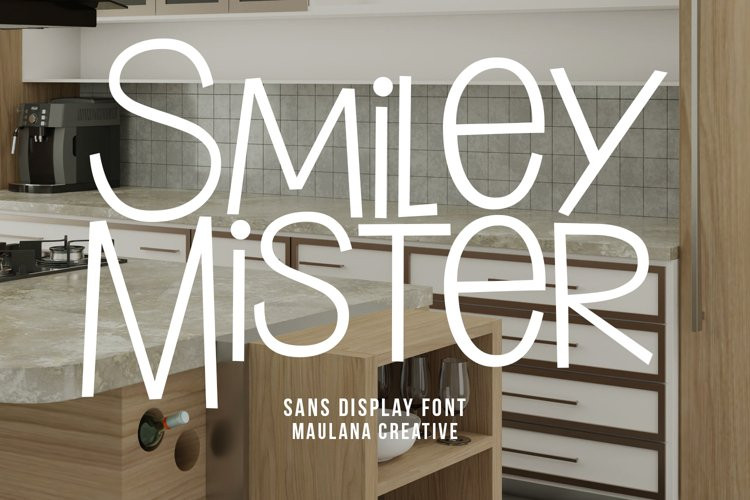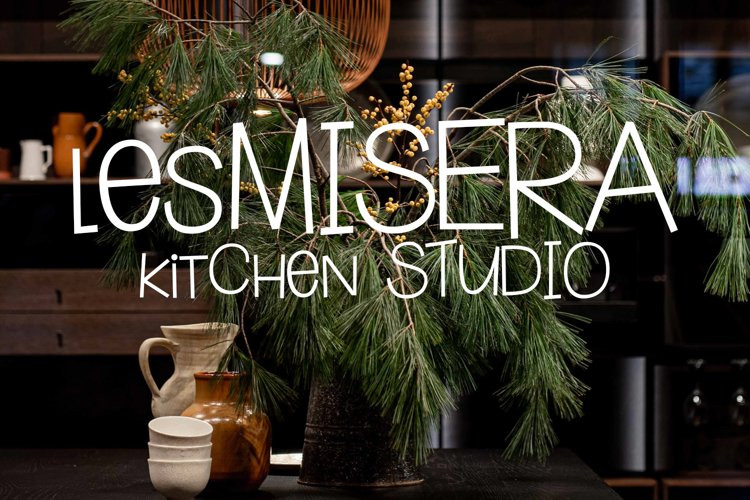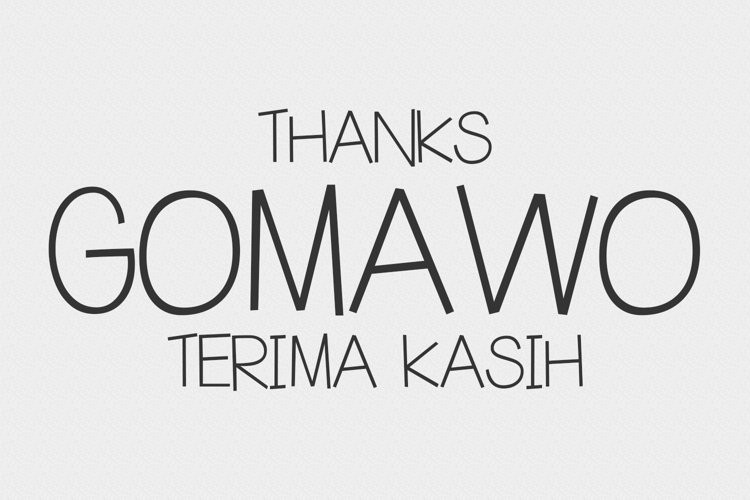
Mister Smiley Font
Mister Smiley FontMister Smiley is a quirky bouncy handwritten font. With sharp edges stroke, fun character with a bit of ligatures and alternates. To give you an extra creative work. Mister Smiley font support multilingual more than 100+ language. This font is good for logo design, Social media, Movie Titles, Books Titles, a short text even a long text letter and good for your secondary text font with sans or serif. Make a stunning work with Mister Smiley font.